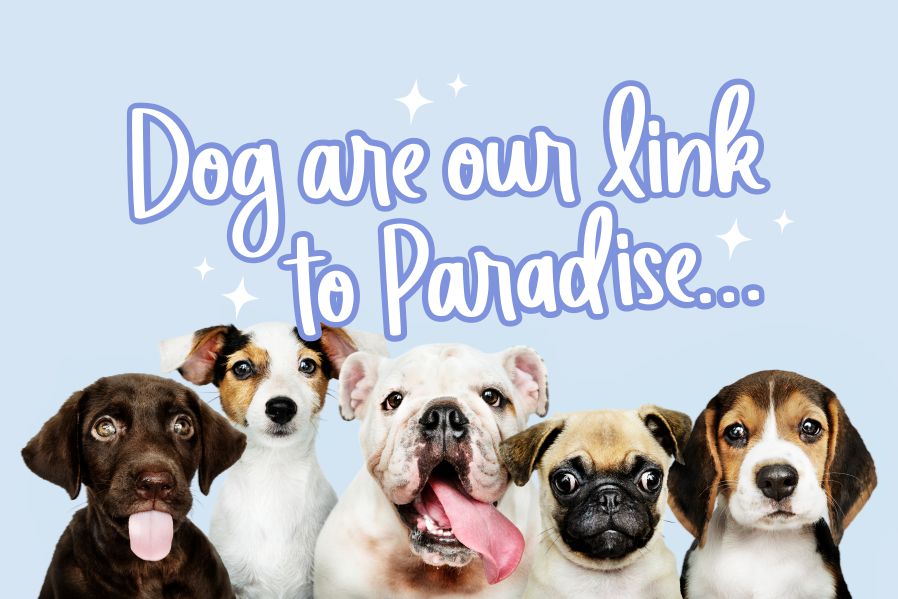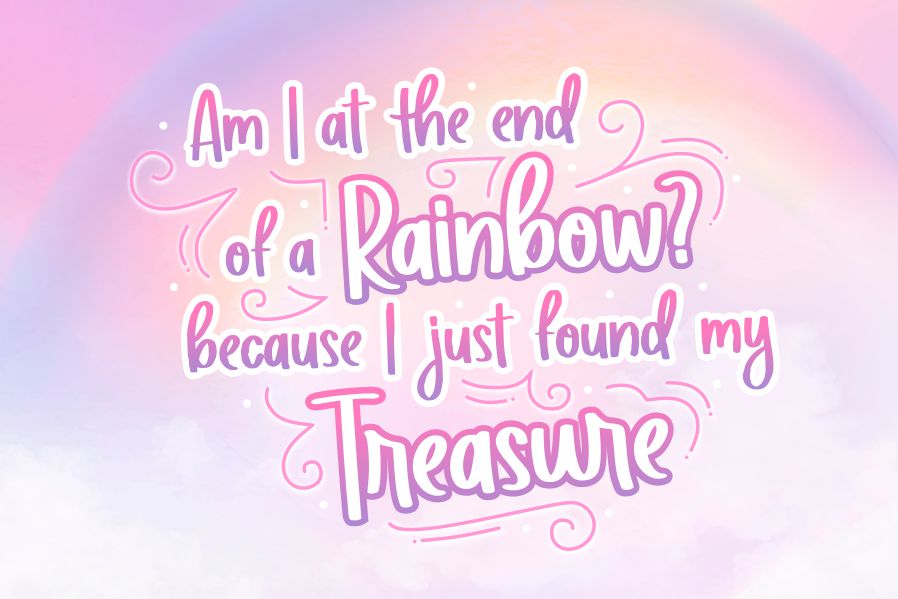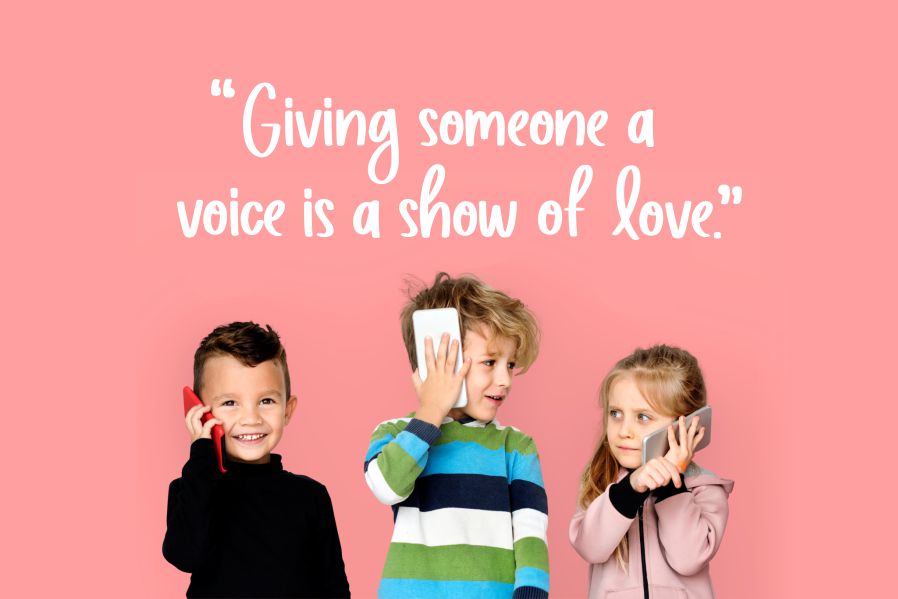
Social Melinda Font
Social Melinda Script Font
This is a cute handwritten font perfect for product packaging, branding projects, magazines, social media posts, wedding invitations, and many more. Add this font to your favorite creative ideas, and notice how it makes them come alive!